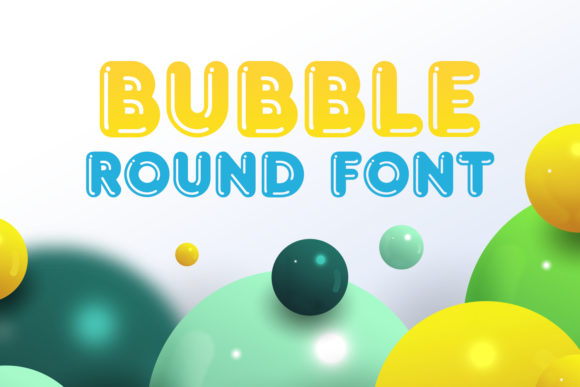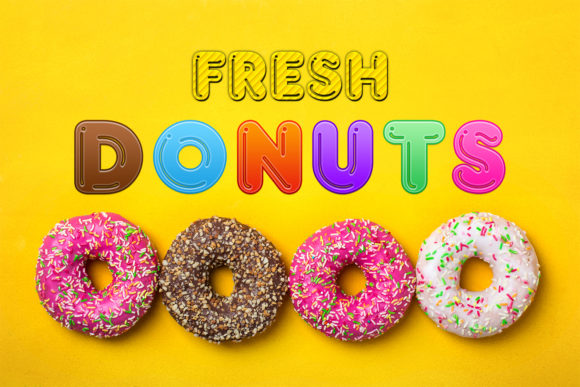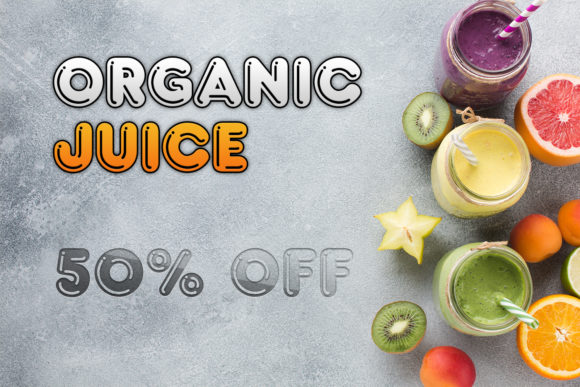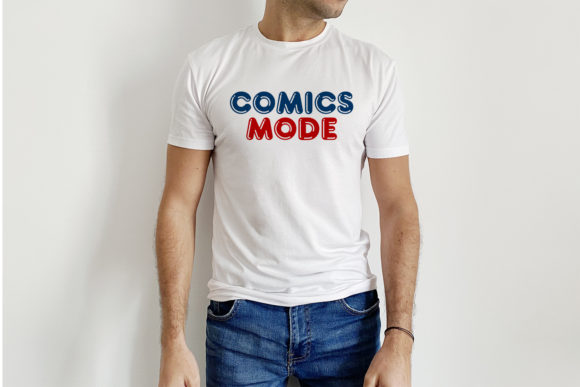
Bubble Round Font
Bubble Round is a sweet and chunky lettered display font. Its friendly feel makes this font incredibly versatile, fitting a wide range of contexts. Add it to your creative ideas and notice how it makes them stand out!